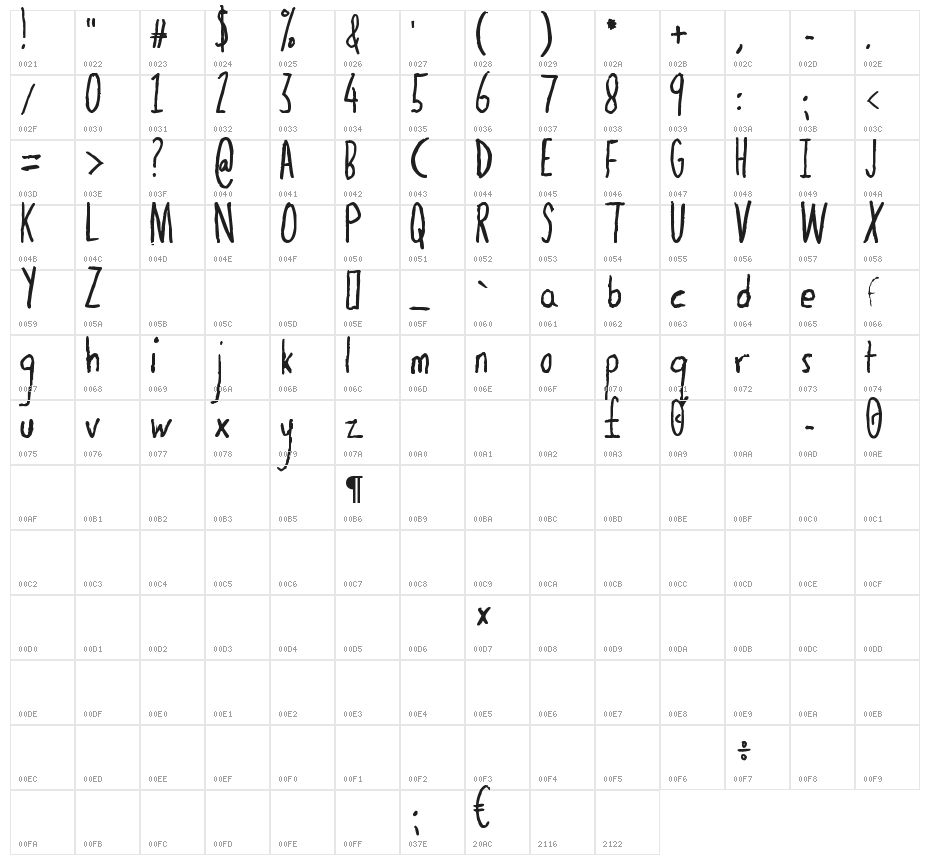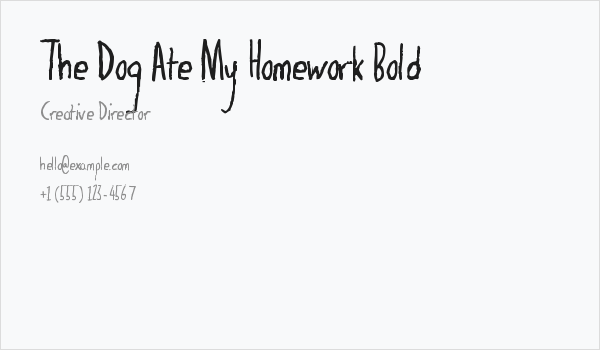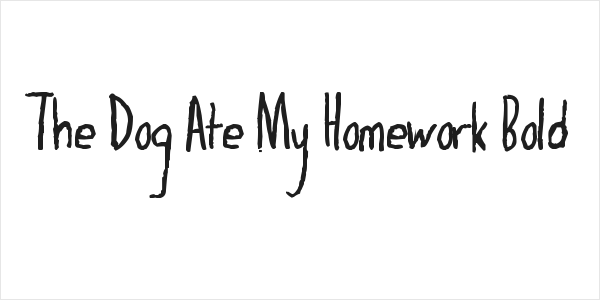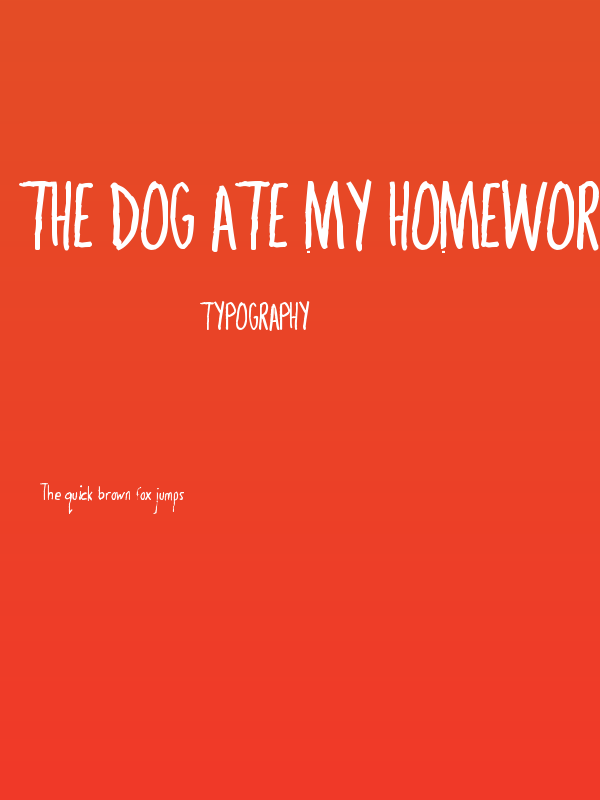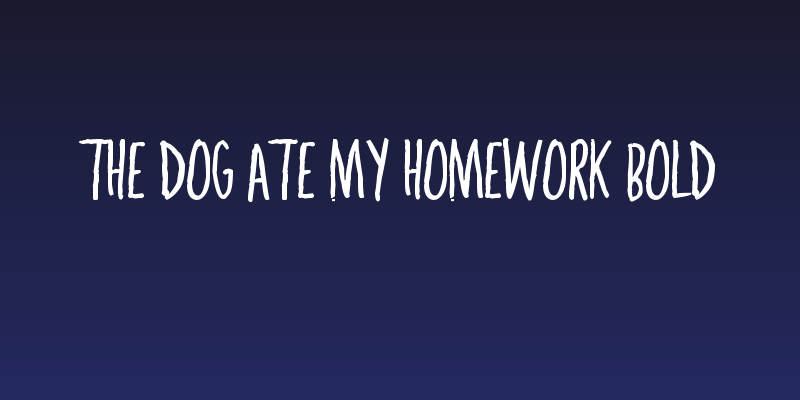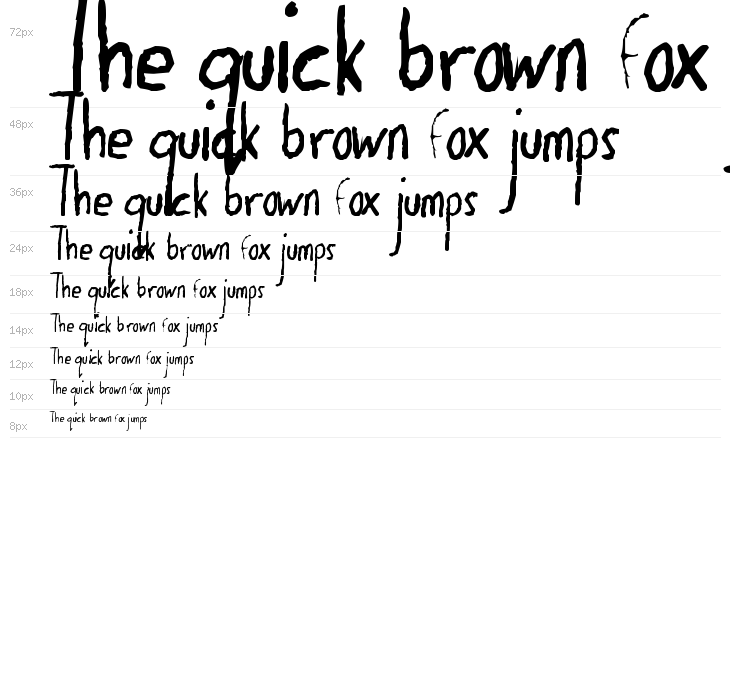
The Dog Ate My Homework Bold Font
The Dog Ate My Homework Bold Description
This font features a playful and quirky handwritten style, characterized by its uneven and slightly erratic strokes. The letters have a casual, informal appearance, reminiscent of a child's handwriting or doodles. The uppercase and lowercase letters maintain a consistent style, with some letters exhibiting exaggerated curves and angles. The numbers and special characters follow the same whimsical design, adding to the overall charm. The font's boldness enhances its visibility, making it suitable for eye-catching designs.
| Proposed Projects | Ideal for children's book covers, playful posters, casual invitations, and creative branding projects. |